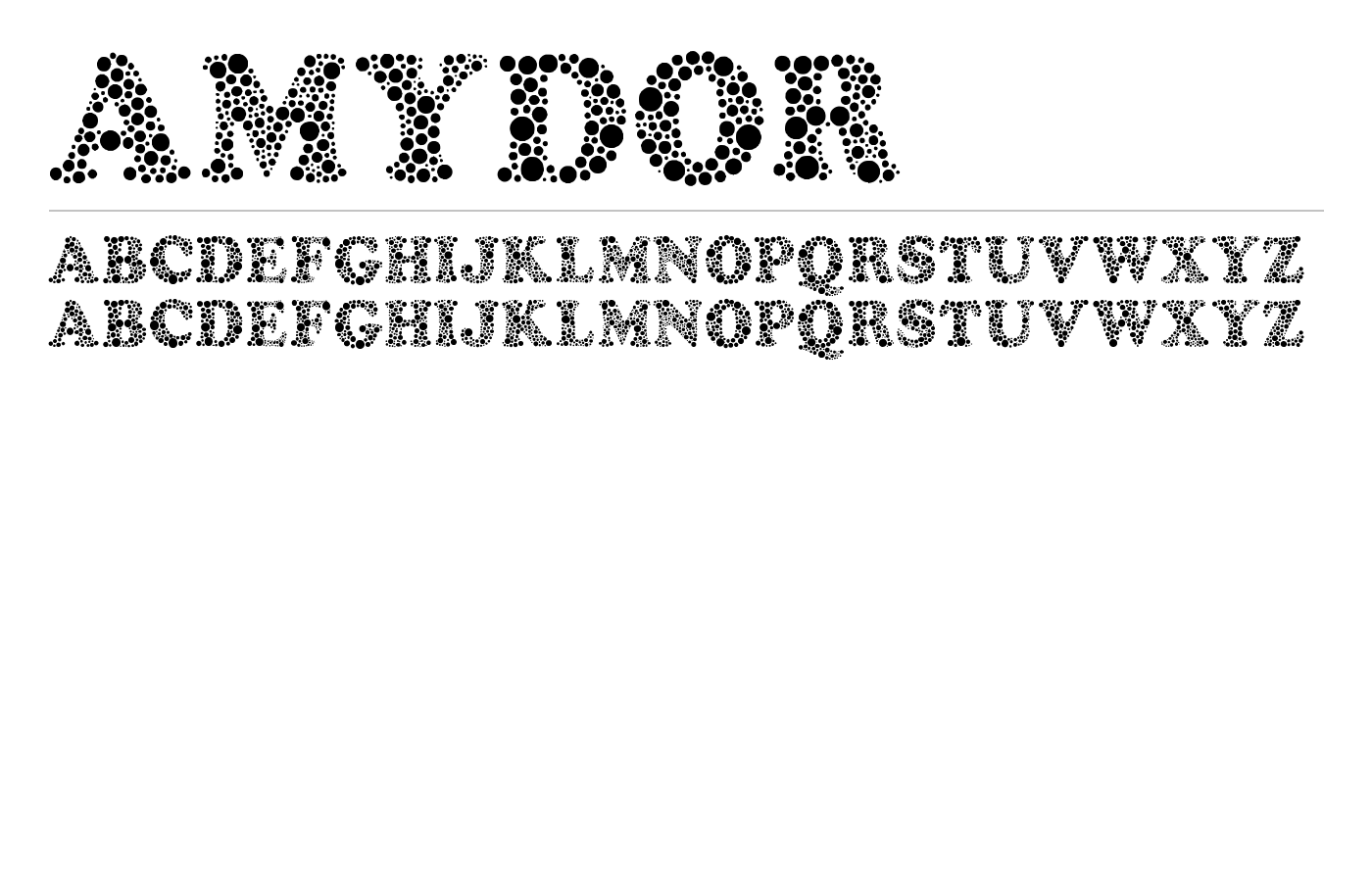
Amydor is a playful and decorative serif font formed entirely from varying sizes of solid dots, creating a textured and whimsical effect. Its bold, structured letterforms blend classic serif shapes with a modern, artistic twist, making it perfect for eye-catching headlines, logos, or creative branding that seeks a fun and unique personality. This font adds a lively, tactile feel that works well in playful, casual, or artistic designs where originality is key.
Amydor Font
About Amydor Font